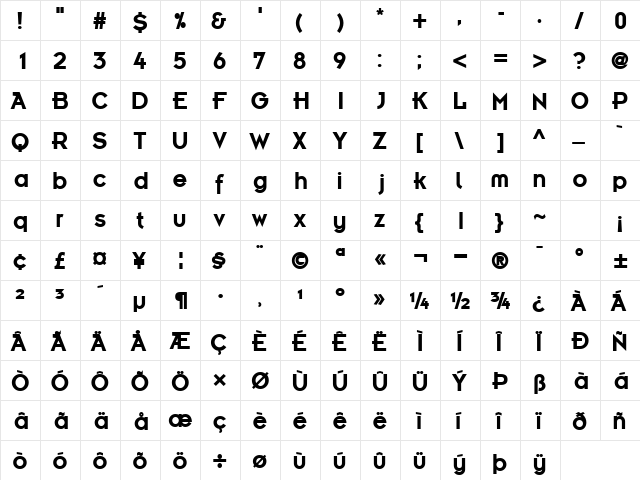
KernelSSK Bold
Design Context for KernelSSK Typeface
KernelSSK offers clean, dependable letterforms without strong stylistic allegiance, making it a practical choice for designers who need flexibility. Its bold stroke weight gives it real presence on the page.
Pro Tip: Pair KernelSSK with a font of contrasting weight or personality to build a more expressive typographic hierarchy.